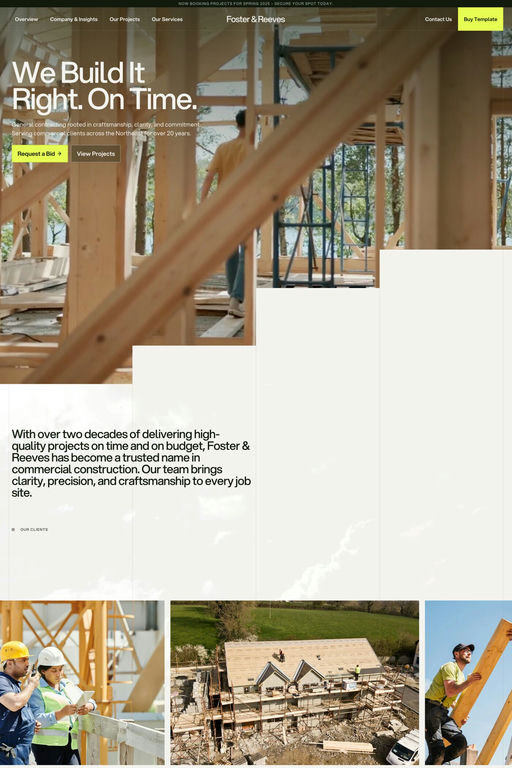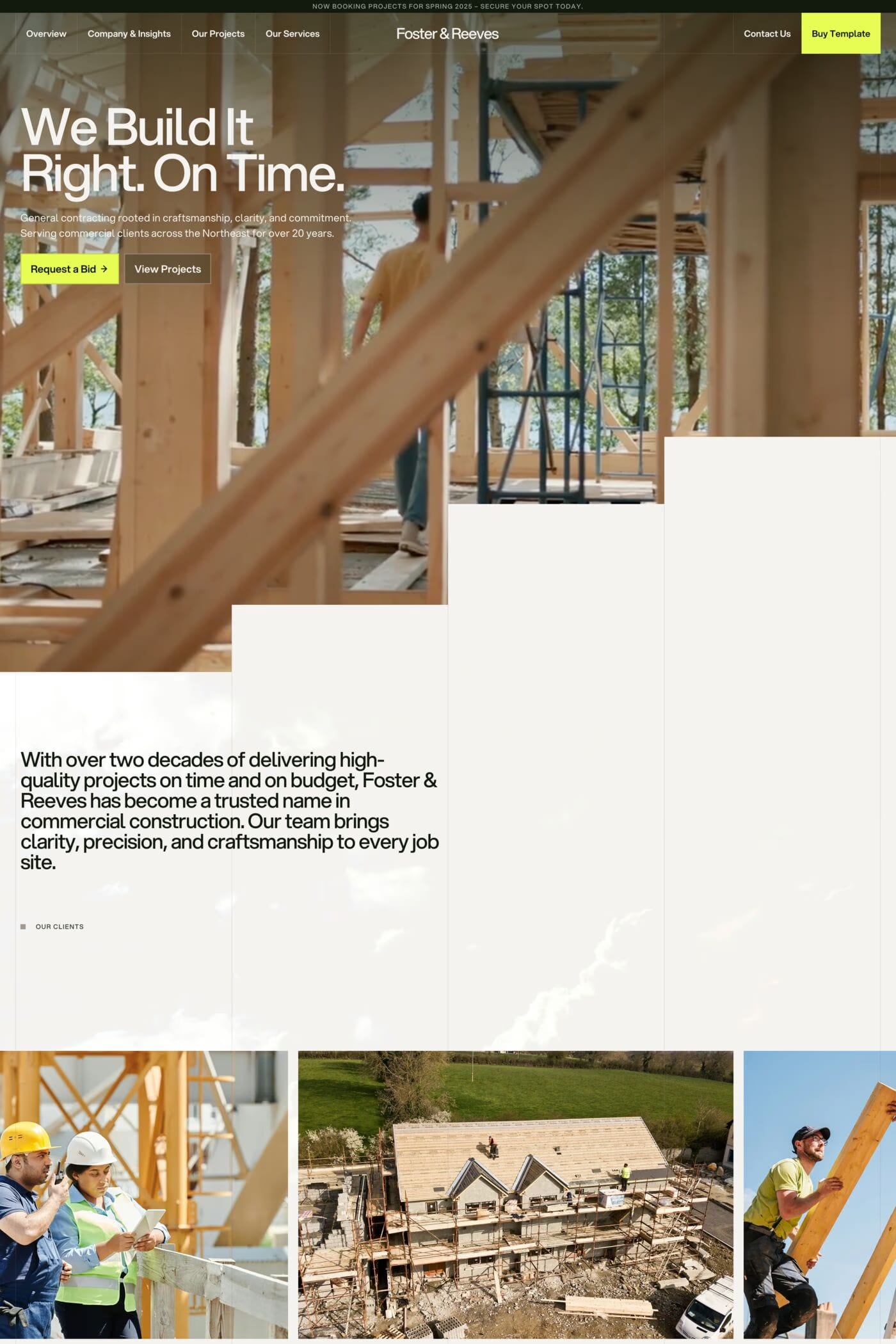
Raveo is a warmer version of the open-source typeface Inter. Inter is one of the highest quality typefaces around. This project builds on top of Inter with a fork that shifts it slightly towards imperfection and human touch, while doubling down on the sturdiness.